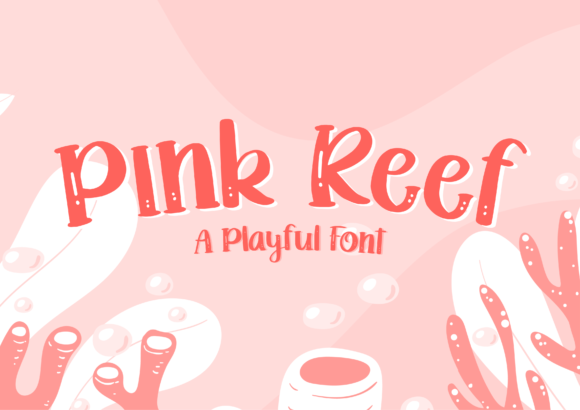
Presenting Pink Reef Font - A Playful & Bubbly Display Font Crafted for Creative Expression
Escape into the world of whimsy and delight with Pink Reef Font, a mesmerizing display font that adds a touch of bubbly charm to your designs. This enchanting font, brought to life by the talented loklike, is the perfect companion for those seeking a unique and expressive font to elevate their creative projects.
Unleash your imagination and let Pink Reef Font dance across your digital canvas, transforming ordinary words into extraordinary visual masterpieces. With its playful and slightly quirky nature, this font will bring a smile to your face and captivate the hearts of your audience.
Picture this - The vibrant hues of a coral reef, the playful dance of ocean waves, and the sheer joy of diving into the depths of creativity. Pink Reef Font embodies this very essence, inviting you on an artistic adventure where colors blend and imaginations soar.
Whether you're a seasoned designer or just starting your creative journey, Pink Reef Font is the perfect font to add a dash of whimsy and personality to your work. So, dive right in, let your creativity flow, and experience the magic of Pink Reef Font today!